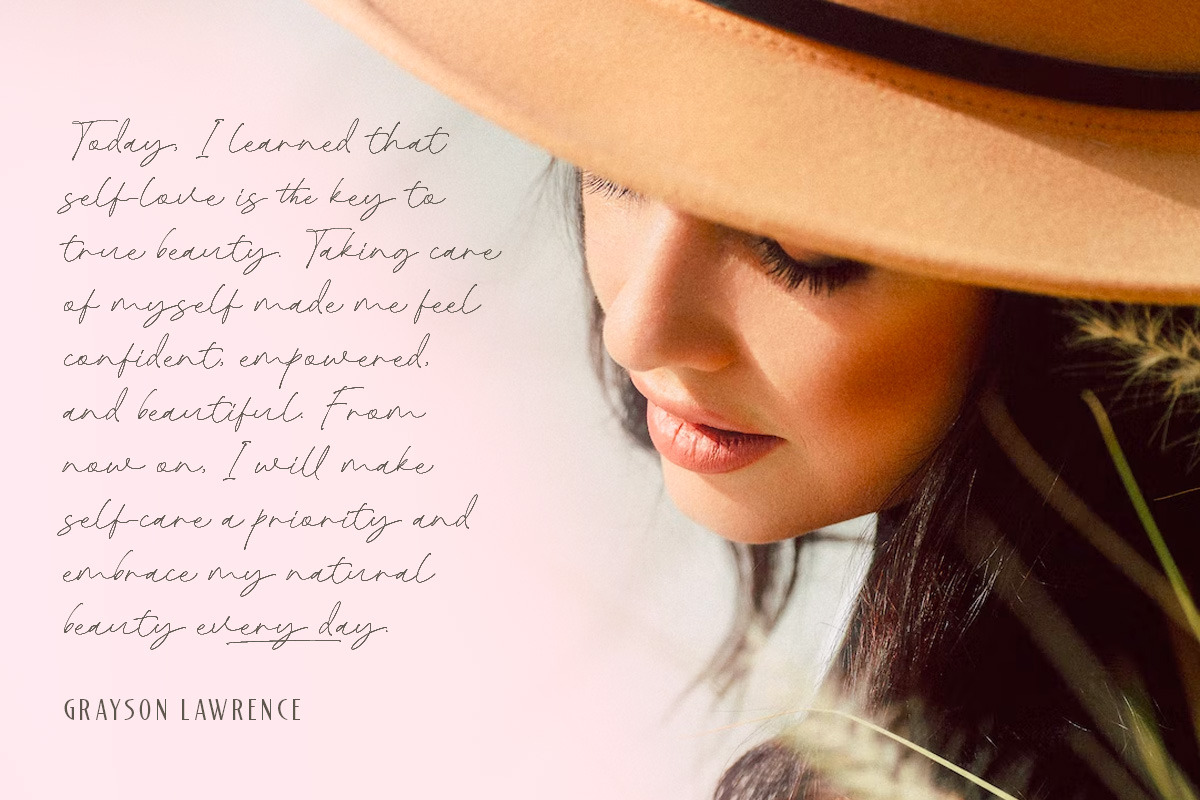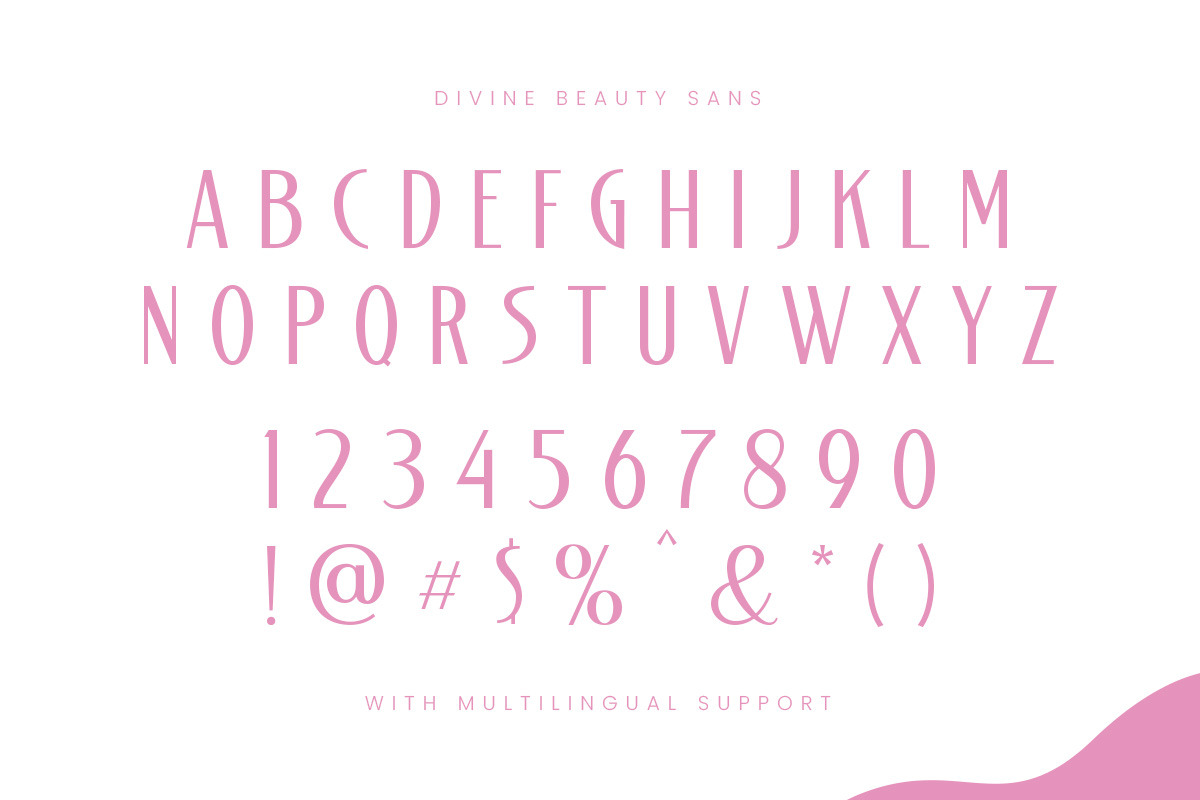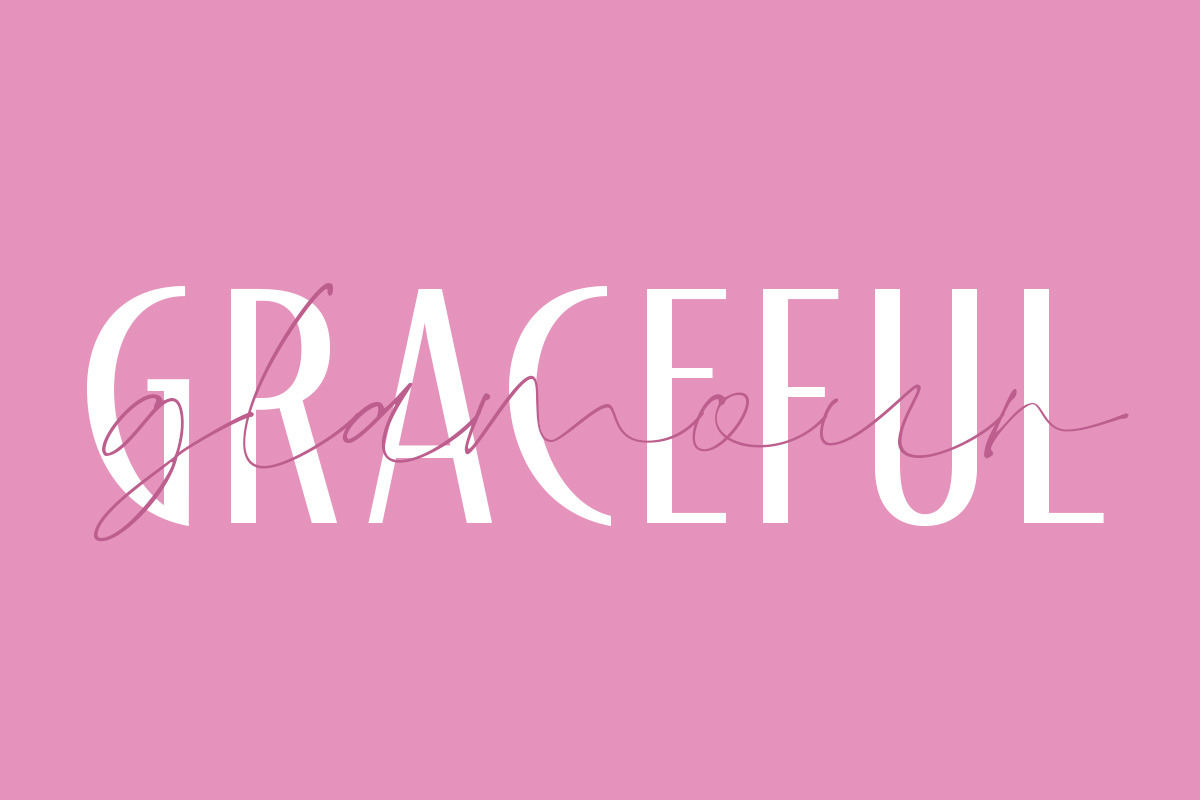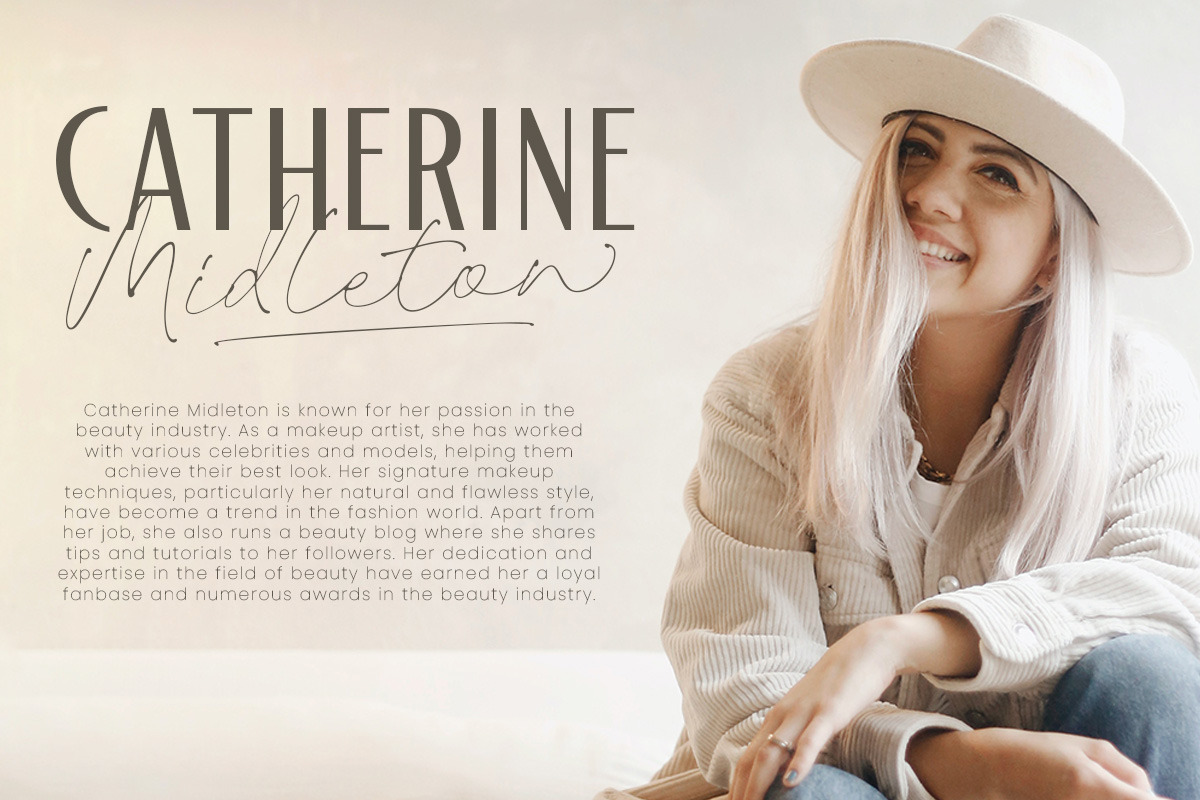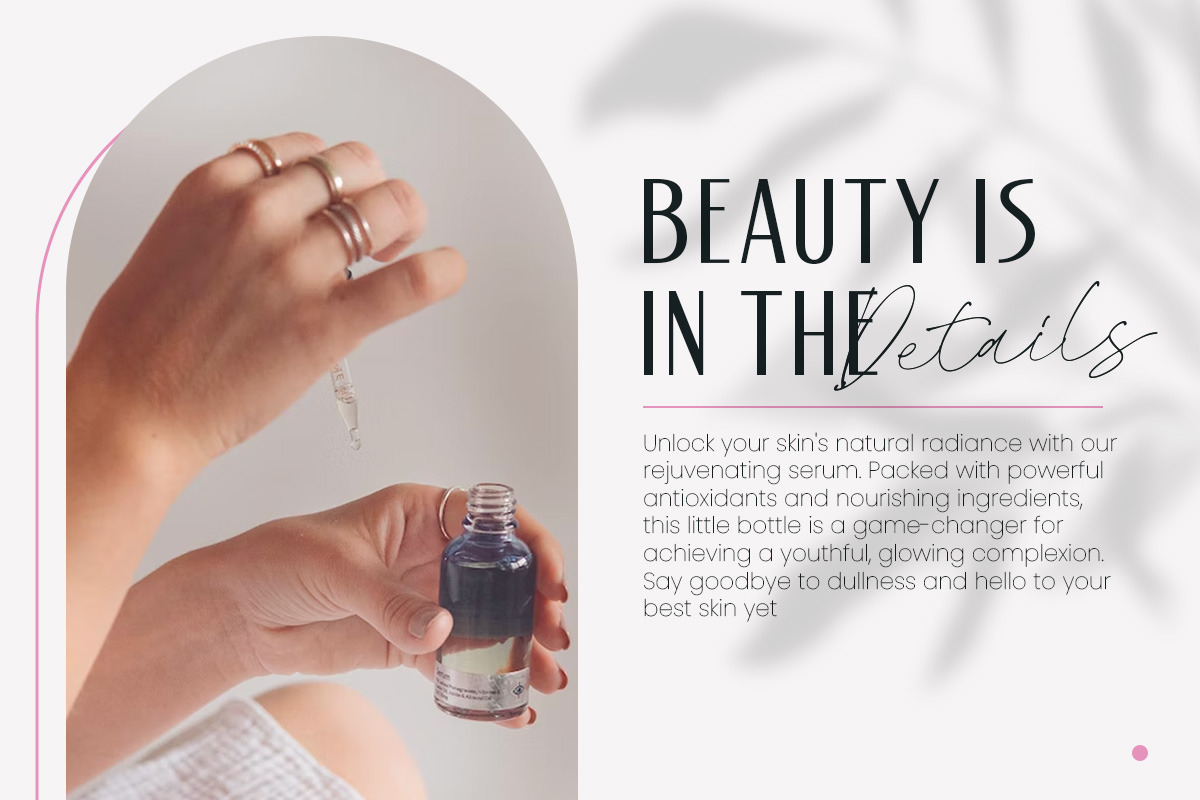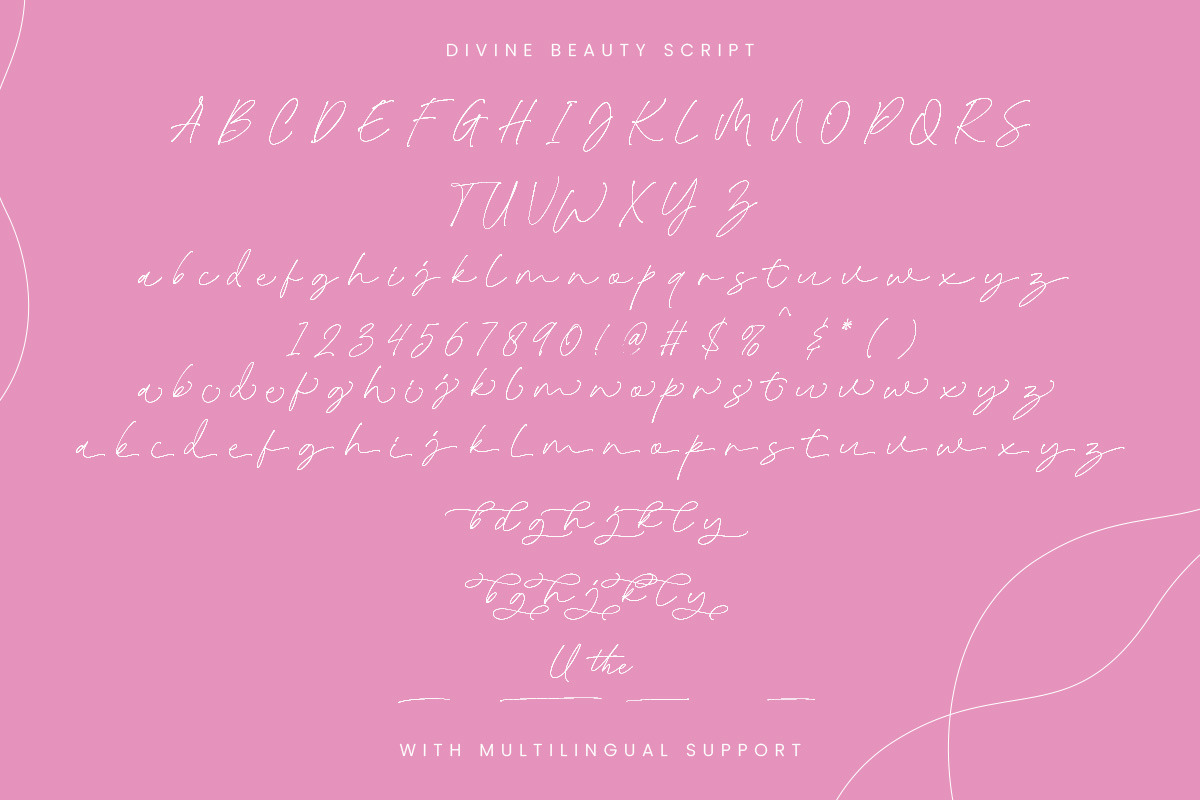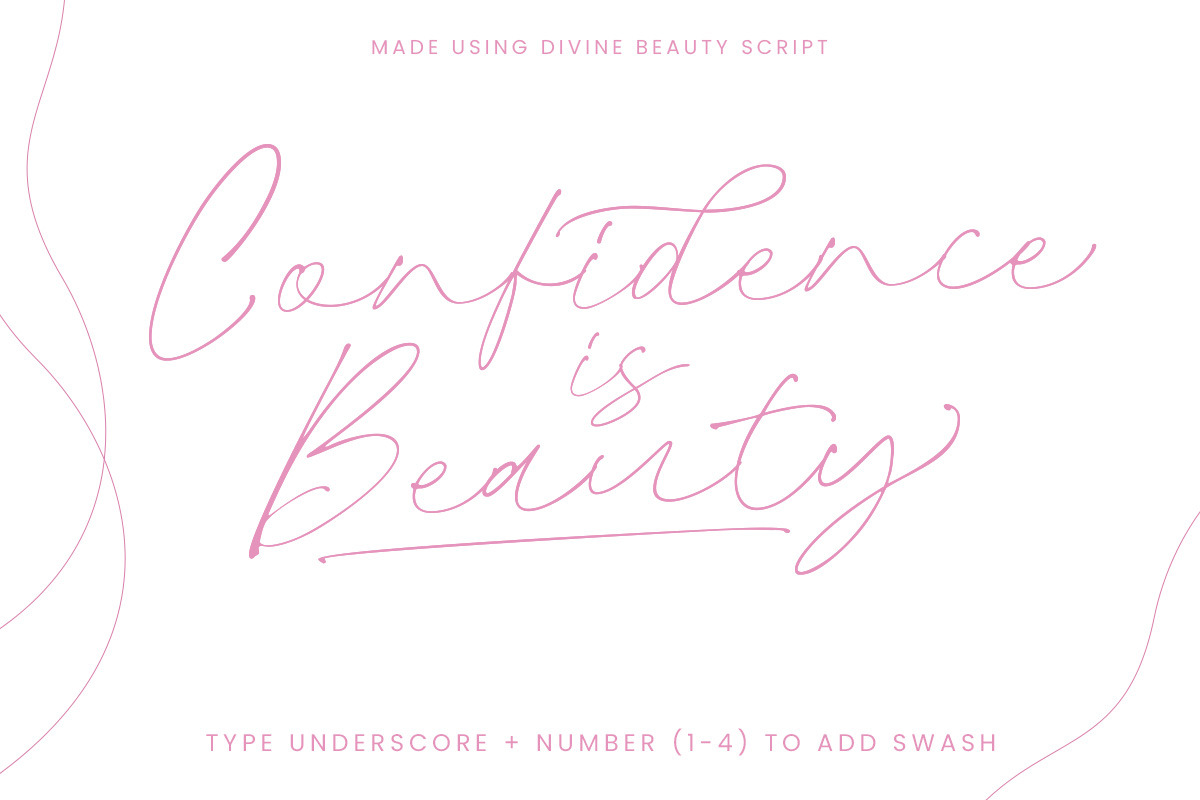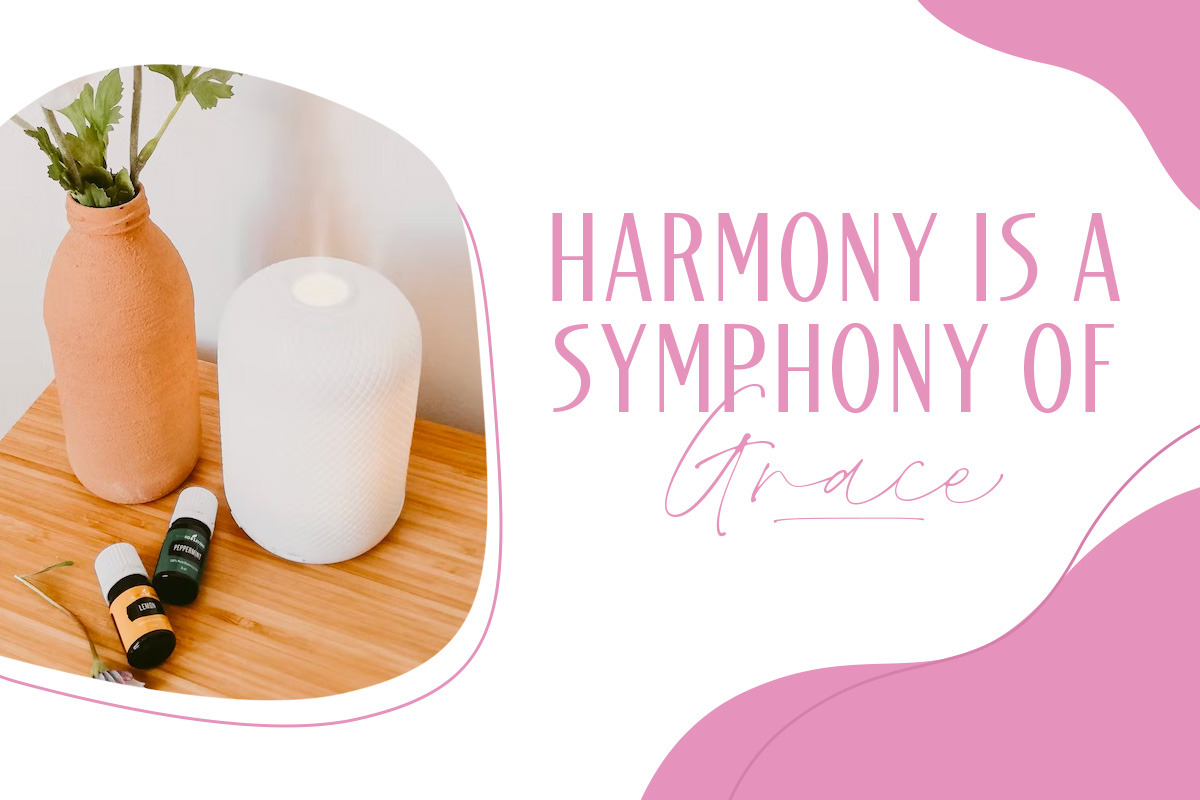
The Devine Beauty - Chic Companion
The Devine Beauty font is characterized by its simplicity and modernity. The clean lines and balanced proportions of the sans-serif font complement the elegant curves and flourishes of the serif font, creating a harmonious and visually appealing pairing.